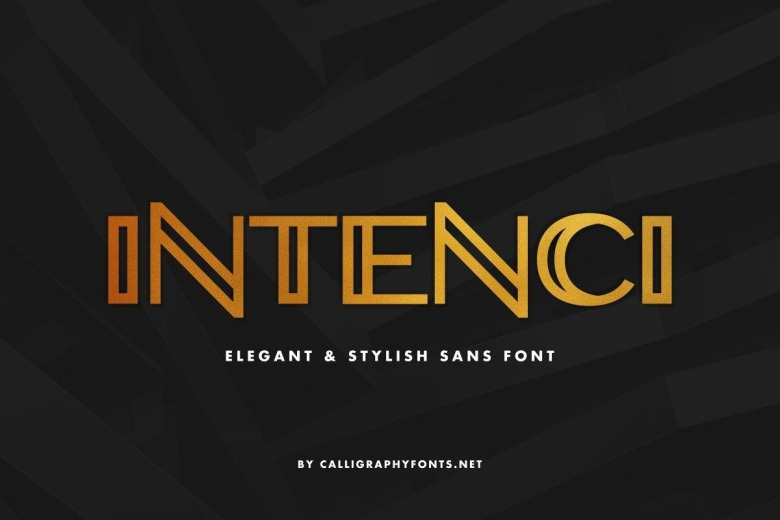
INTENCI Display Sans Font
INTENCI Display Sans Font is a Display Sans Serif Font with minimal font style. The theme of these fonts are modern, elegant, luxury, glamour, classic and sophisticated.